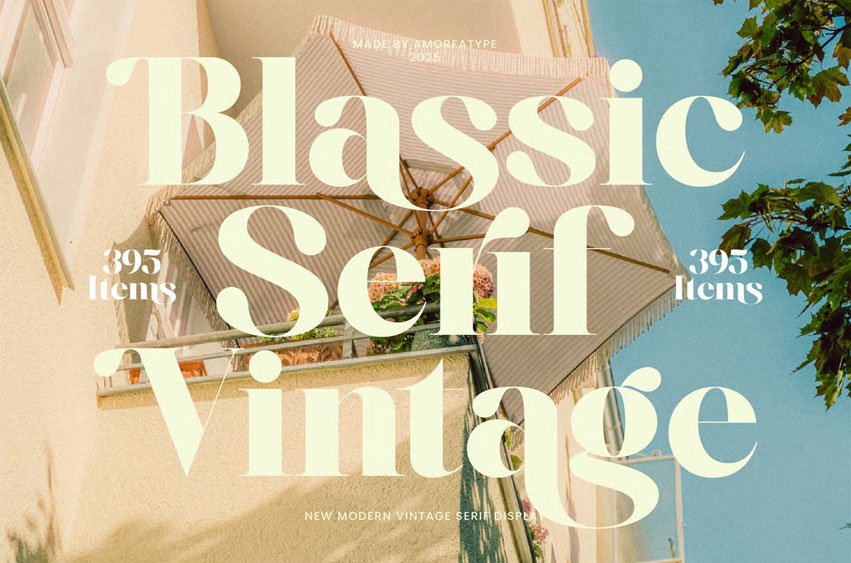
Blassic Font is a new modern vintage serif display font that blends nostalgic charm with contemporary sophistication. Featuring strong contrast, elegant curves, and classic serif details, Blassic captures the essence of timeless design while offering a fresh, modern appeal. It’s perfect for designers who want to combine vintage aesthetics with bold, elegant expression.
- Modern Vintage & Display-Ready – Perfect for logos, posters, headlines, and editorial layouts.
- Elegant & Timeless Style – Adds character and refinement to any visual project.
- 395 Glyphs Total – Including 41 Alternates & 22 Ligatures for creative flexibility.
- Complete Character Set – Uppercase, lowercase, numerals, punctuation, and ligatures.